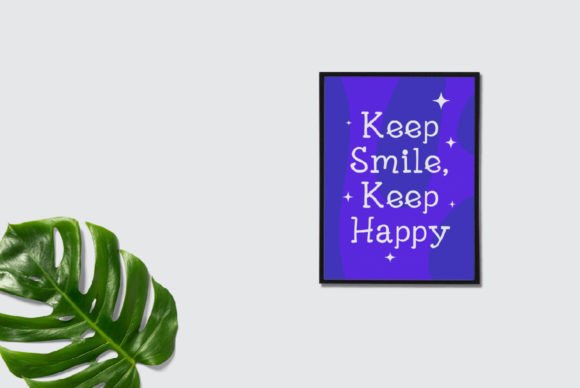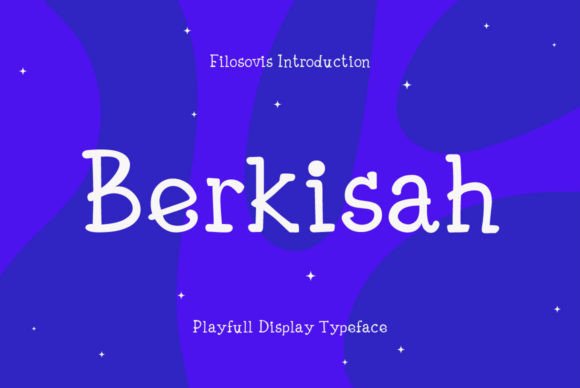
The Berkisah Font: A Fun and Friendly Addition to Your Design Toolkit
I’ll never forget the time I was working on a project for a children’s book, and I just couldn’t find the right font to match the playful tone of the story. The client wanted something that would appeal to kids and parents alike, but everything I tried seemed either too boring or too over-the-top. That’s when I stumbled upon the Berkisah font, and it was like a breath of fresh air. With its fun-lined appearance and cute design, it was the perfect fit for the project.
An Honest Review of Berkisah Font
- ✨ The handwritten style of Berkisah font adds a sense of warmth and approachability, making it a friendly and engaging choice for any project.
- ✅ The font’s fun-lined appearance and cute design make it perfect for projects that require a playful touch, such as children’s books, greeting cards, and posters.
- ✅ Berkisah font is highly versatile and can be used for a wide range of projects, from digital media to print materials.
While Berkisah font is an excellent choice for many projects, it’s not without its quirks. For example:
- ⚠️ The font’s playful style may not be suitable for more formal or professional projects, such as business reports or academic papers.
- 🤔 Some users may find that the font’s handwritten style can be a bit tricky to read in large blocks of text.
The Backstory of Berkisah Font
Berkisah font was designed by a team of creatives who wanted to create a font that would bring a sense of fun and playfulness to design projects. Inspired by traditional Indonesian storytelling, the font features a unique blend of modern and traditional elements. The design team aimed to create a font that would be both versatile and engaging, with a focus on warmth and approachability.
Q: What is Berkisah font?
A: Berkisah font is a fun-lined font characterized by its cute design and handwritten style.
Q: Is Berkisah font suitable for formal projects?
A: While Berkisah font is a versatile font that can be used for a wide range of projects, its playful style may not be suitable for more formal or professional projects.
Q: Does Berkisah font support OpenType features?
A: Yes, Berkisah font supports OpenType features, including glyphs and stylistic alternates.